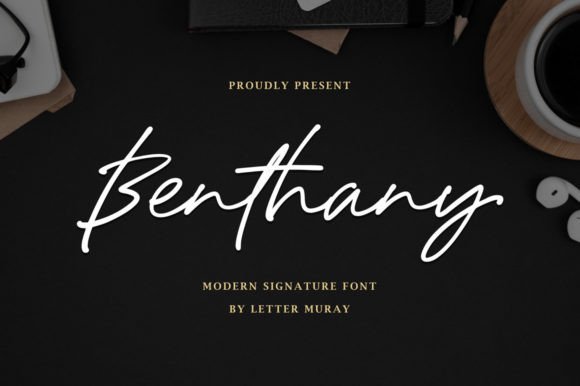
The Magic of Benthany Font: Elevate Your Designs with Elegance
I’ll never forget the time I was working on a branding project for a luxury wedding planner. I had spent hours pouring over design concepts, but something was missing – the perfect font. That’s when I stumbled upon Benthany, a magic script font that added a touch of elegance to my designs. If you’re a designer, crafter, or creative hobbyist looking for a font that can elevate your projects, you’re in the right place.
An Honest Review of Benthany Font
So, what makes Benthany so special? Let’s dive into the good stuff and a few quirks to keep in mind.
What I Love About Benthany ✨
• 💫 Elegant and sophisticated: Benthany adds a touch of luxury to any design.
• ✅ Highly versatile: Use it for branding, invitations, web graphics, cards, and more.
• 🎨 Beautiful swashes and ligatures: Benthany’s OpenType features make it easy to create stunning compositions.
• 📚 Extensive character set: With support for multiple languages, Benthany is perfect for global designs.
• ⚠️ Limited use for body text: Benthany is best suited for headlines and titles due to its script nature.
• 🤔 Some characters may require manual kerning: While Benthany is generally well-spaced, some combinations may need tweaking.
The Story Behind Benthany Font
Benthany was crafted with love by a talented type designer who aimed to create a font that would add a touch of magic to any design. Inspired by classic calligraphy and elegant scripts, Benthany is the result of careful attention to detail and a passion for beautiful typography.
Author Letter Muray